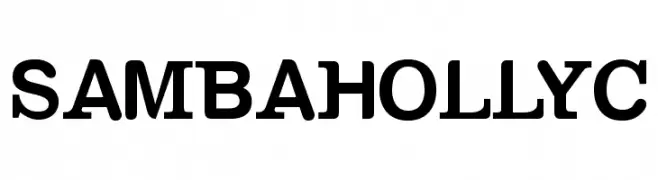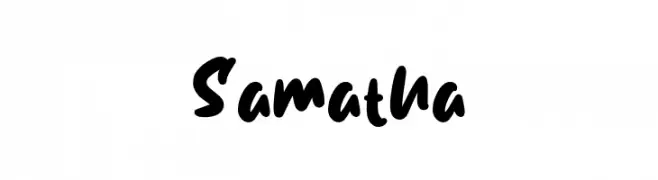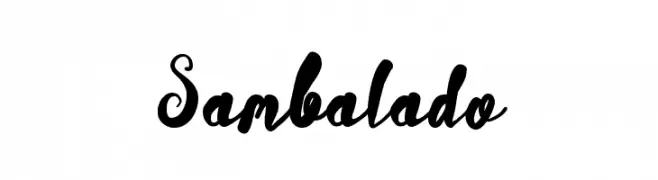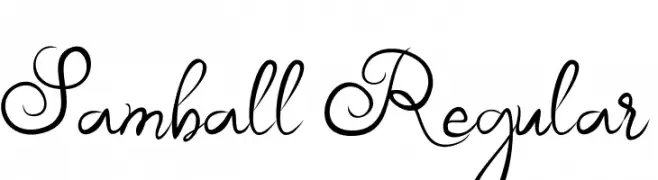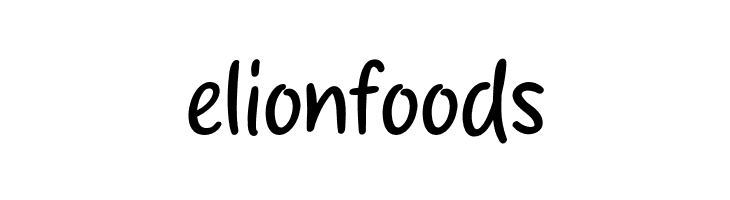
A playful, handwritten font with smooth curves and a casual style.
A bold, expressive handwritten font with a casual and modern style.
A decorative and lively font with intricate details and a festive flair.
A bold, playful font with rounded edges and a vintage flair.
A bold, expressive script font with dynamic, cursive letterforms.
An elegant, flowing script font with intricate loops and flourishes.
A tall, narrow font with a modern and sleek design.